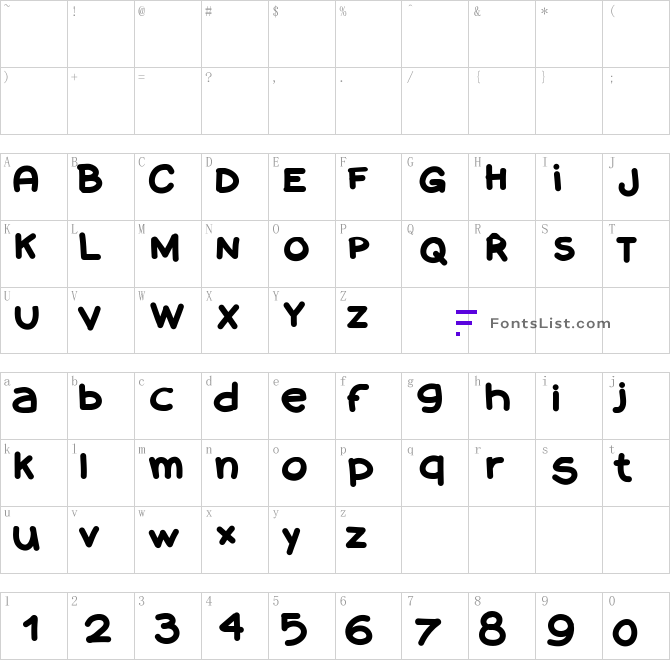
- Font Name:AManoBlaxtendida
AManoBlaxtendida.ttf is a very beautiful artistic font, AManoBlaxtendida.ttf is widely used in the design and printing of various books and pictures,AManoBlaxtendida.ttf has a strong visual impact,AManoBlaxtendida.ttf is a commonly used font in newspapers, magazines and books, and is used in posters, e-commerce Poster design, store design, logo design, font design and other fields.AManoBlaxtendida.